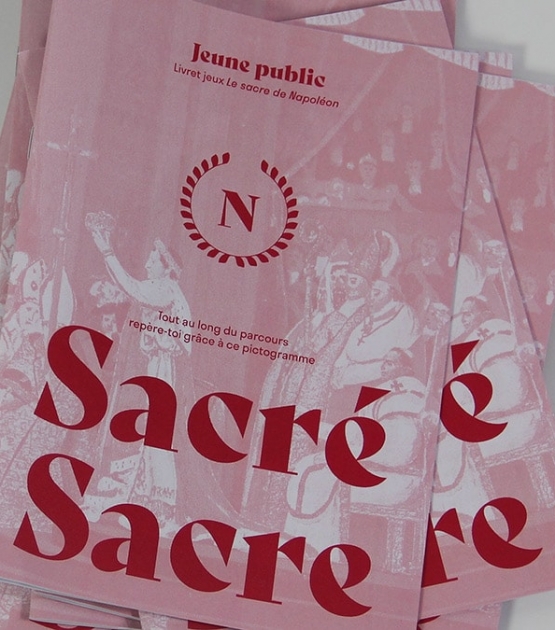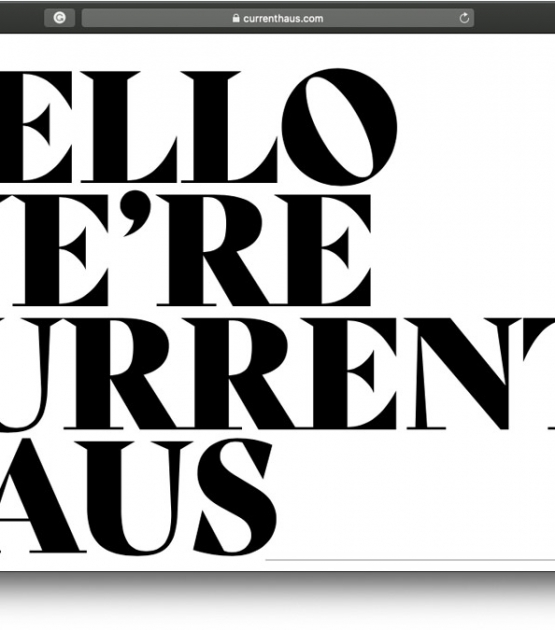
Bely
Designed by Roxane Gataud . Released 2016.
Bely is Roxane Gataud’s venturesome text font family paired with a fearless display in the French style. Built upon classical proportions to capitalise on reading familiarity, Bely’s four text weights combine comfortable reading with an admirable texture. Bely Display pushes the logic of the text weights to their extreme, resulting in adventurous forms for unforgettable packaging and headlines.
Bely
A classy throwback text font family with a fearless and venturesome display.
Bely is the first design by French newcomer Roxane Gataud. Too many typefaces are either governed by fear and never accomplish what they could, or are unrestrained which results in their frenetic dangling like a leaf caught in a spider’s web. Bely’s strength is that it has both restraint and freedom throughout the text weights and into the unique display weight. There is no fear in this type family, but only great respect for both the tradition of reading and the opportunity to make an impression.
Bely is a high-class throwback containing four text weights which were built upon classical proportions to capitalise on reading familiarity. Bely Text features balanced capitals and a play between large, triangular serifs at the top and thick, bracketed, rectangular serifs at the bottom. The family is capped by a radical, expressive French-style display weight which pushes the rules of the text weights to their logical extreme. Bely Display, truly daring with its monstrous and angled contrast, exploits the features which make an impression at larger sizes. In the end, Bely Display is adventurous when used in packaging, identities, and headlines with attitude, while Bely Text’s calm baseline and piercing ascenders give paragraphs texture and familiarity.
Bely covers the Latin A Extended glyph set and brings its sense of confidence to your projects with its two text weights, matching italics, and unique display style. Bely’s satisfying OpenType features allow for the implementation of typographic niceties such as small caps, both tabular and proportional lining and oldstyle figures, ligatures, alternate characters, case-sensitive variants, and fractions. The complete Bely family, along with our entire catalogue, has been optimised for today’s varied screen uses.